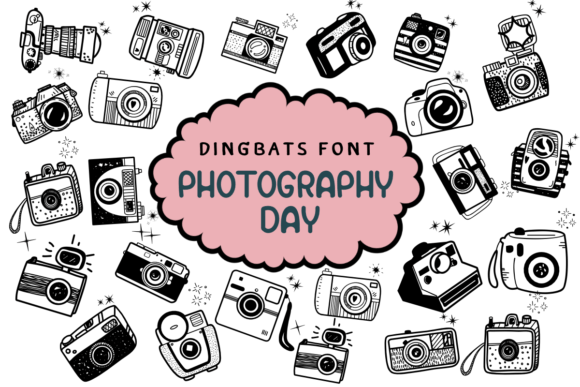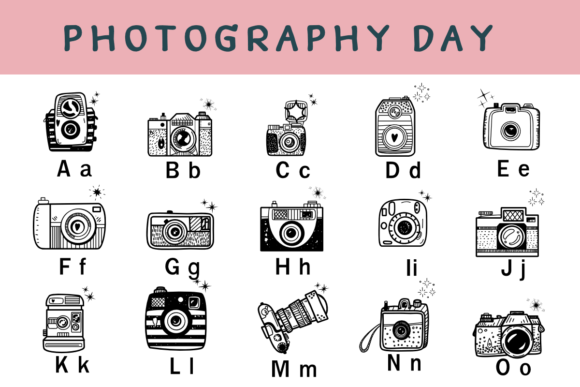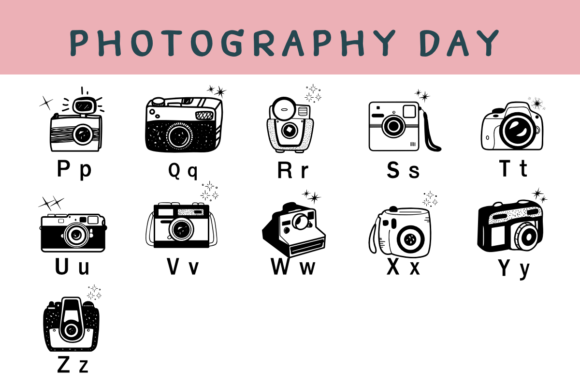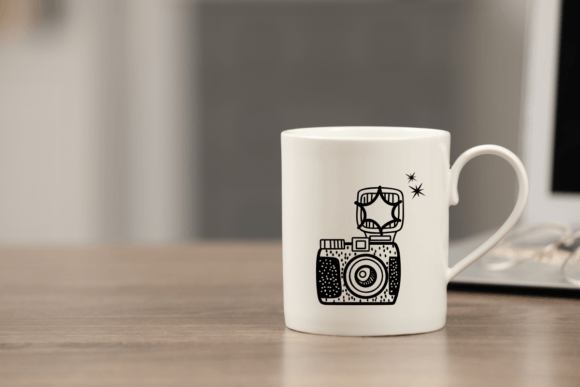
Photography Day Font
About the Photography Day Font
The Photography Day Font is here to transform your projects with its distinctive character and style. Photography Day is a dingbat font with a photography-related theme with a sketch style. This font can enhance your creative projects such as wedding invitations, DIY, crafts, decorations, logos, and many other creative ideas.
Photography Day’s sketched style and playful dingbat nature make it ideal for projects requiring a lighthearted, handcrafted feel. It excels in logos, short headlines, and social media graphics where its unique charm can shine. Avoid using it for body text or lengthy passages; its informal character is not suited for readability in extended formats.
This font pairs well with clean sans-serif fonts like Open Sans for a balanced contrast, or a more refined serif like Lora to add a touch of elegance. For a bolder statement, consider pairing it with a geometric sans-serif such as Montserrat.
The overall personality is friendly and approachable, conveying a sense of creativity and DIY spirit. It’s best suited for brands and projects with a similar aesthetic—photography businesses, craft studios, event invitations, or lifestyle blogs.